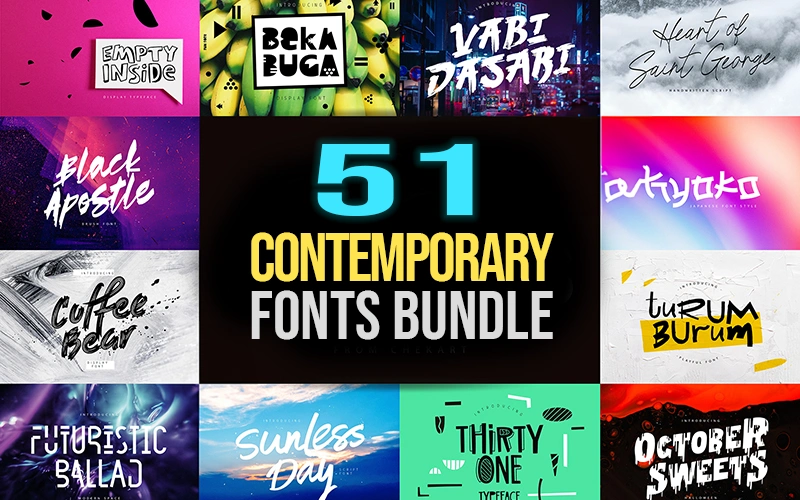
Contemporary Fonts For Modern Designs!
Are you looking for the perfect modern and flexible fonts that make your designs unforgettable? Look no further!
The Contemporary Fonts Bundle has everything you are looking for.
It includes a wide range of font styles, such as display fonts, handwriting fonts, script fonts, calligraphy fonts, and brush fonts.
They also come with Latin characters, alternative characters, set of punctuation glyphs, numerals, Cyrillic, ligatures, some Cyrillic ligatures and offer creative flexibility.
The fonts in this bundle support multiple languages making them useful to connect with a global audience.
This bundle is designed to ensure a clean and crispy design every time.
They can be used for digital products, book covers, t-shirt designs, logos, posters, wedding invitations, greeting cards, etc.
Contemporary Fonts Included in this bundle:
• Adin
• Aksinya
• Basnow
• Bekabuga
• Black Apostle
• Black Shepherd
• Blue Apni
• Coffee Bear
• Cracky
• Demetriss
• Disquise
• Dissentio
• Elvissa
• Embrace Autumn
• Empty Inside
• Forgotten November
• Fragile Bones
• Fun Bang
• Futuristic Ballad
• Heart Of Saint George
• Homas
• Immensely
• Inversus
• Jasunari
• Jelani
• Keni Devil
• Kyoko
• Lonely Angels
• Lovely Valentine
• Malanys
• Miss Lavanda
• Mister Burn And Jack Simple
• Mr Lonely
• Neoscopic
• New Year’S Story
• Nordlike
• October Sweets
• Old Maple
• Raisia
• Retano
• Sacral Town
• Springteel
• Summomne
• Sungal
• Sunless Day
• Thirty One Typeface
• Tino Script
• Trisky Wind
• Turum Burum
• Yabi Dasabi
A Sneak Peek Into The Contemporary Fonts:
A preview of the Futuristic Ballad Font included in the bundle.
A preview of the Heart of Saint George Font included in the bundle.
A preview of the Homas Font included in the bundle.
A preview of the Immensly contemporary font included in the bundle.
A preview of the Inversus Font included in the bundle.
A preview of the Jasunari Font included in the bundle.
A preview of the Jelani Font included in the bundle.
A preview of the Keril Devil contemporary font
A preview of the Kyoko typeface included in the bundle.
A preview of the Lonely Angels Font included in the bundle.
A preview of the Lovely Valentine  Contemporary Font included in the bundle.
A preview of the Malanya contemporary  Font included in the bundle.
A preview of the Miss Lavanda contemporary font included in the bundle.
A preview of the Mister Burn & Jack Simple typeface
A preview of the Mr. Lonely  Contemporary Font included in the bundle.
A preview of the Neoscopic contemporary font included in the bundle.
A preview of the Norlike typeface included in the bundle.
A preview of the October Sweets contemporary font included in the bundle.
A preview of the Vabi Dajabi contemporary font